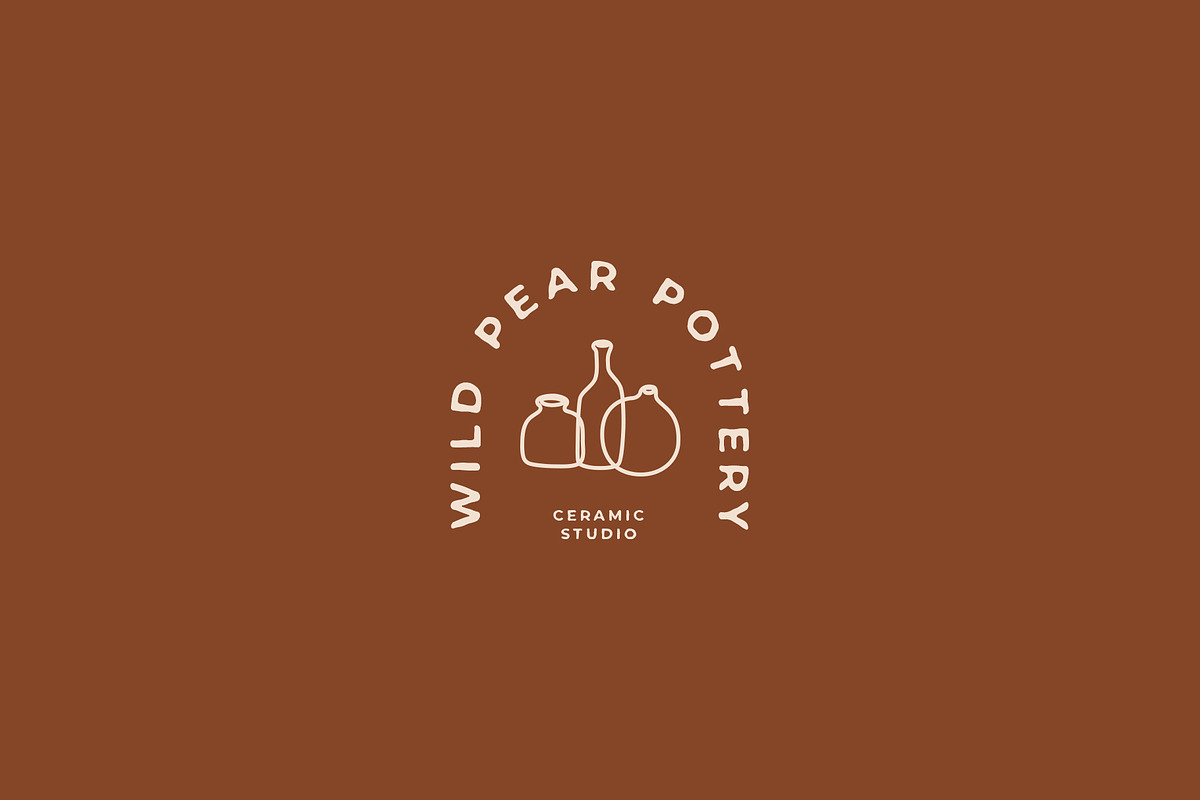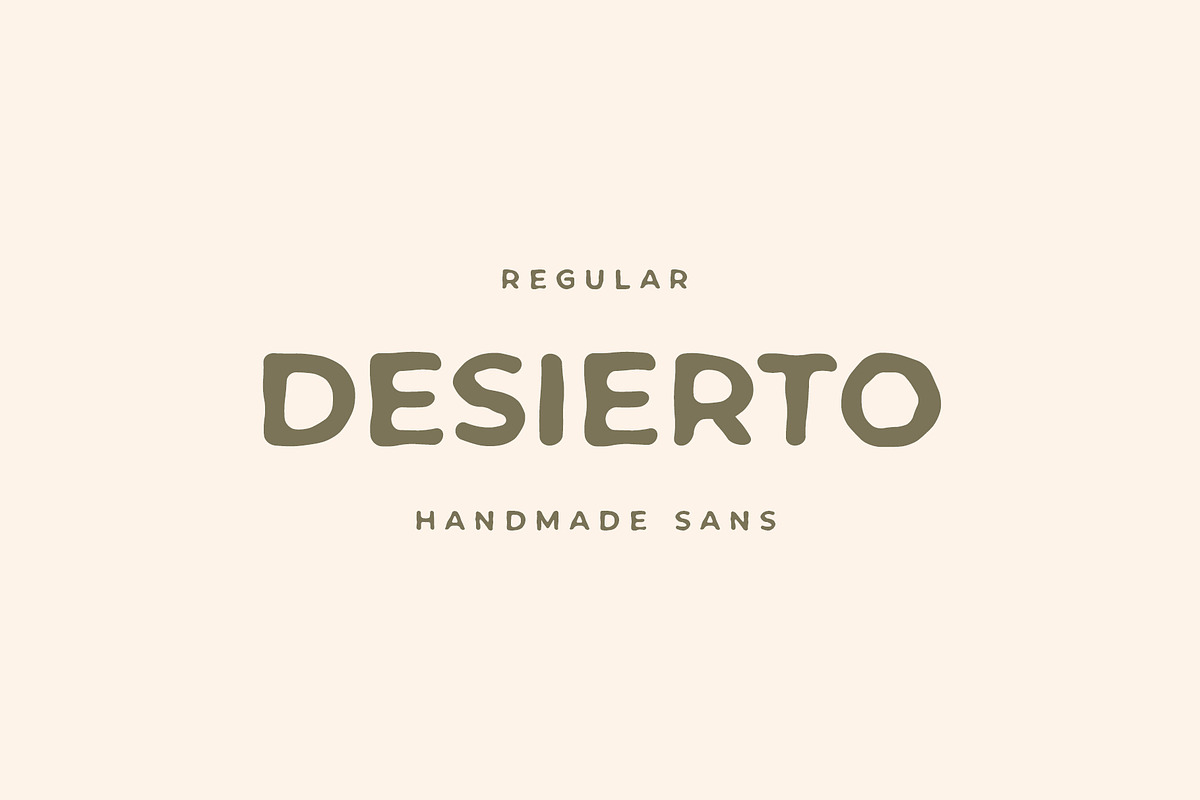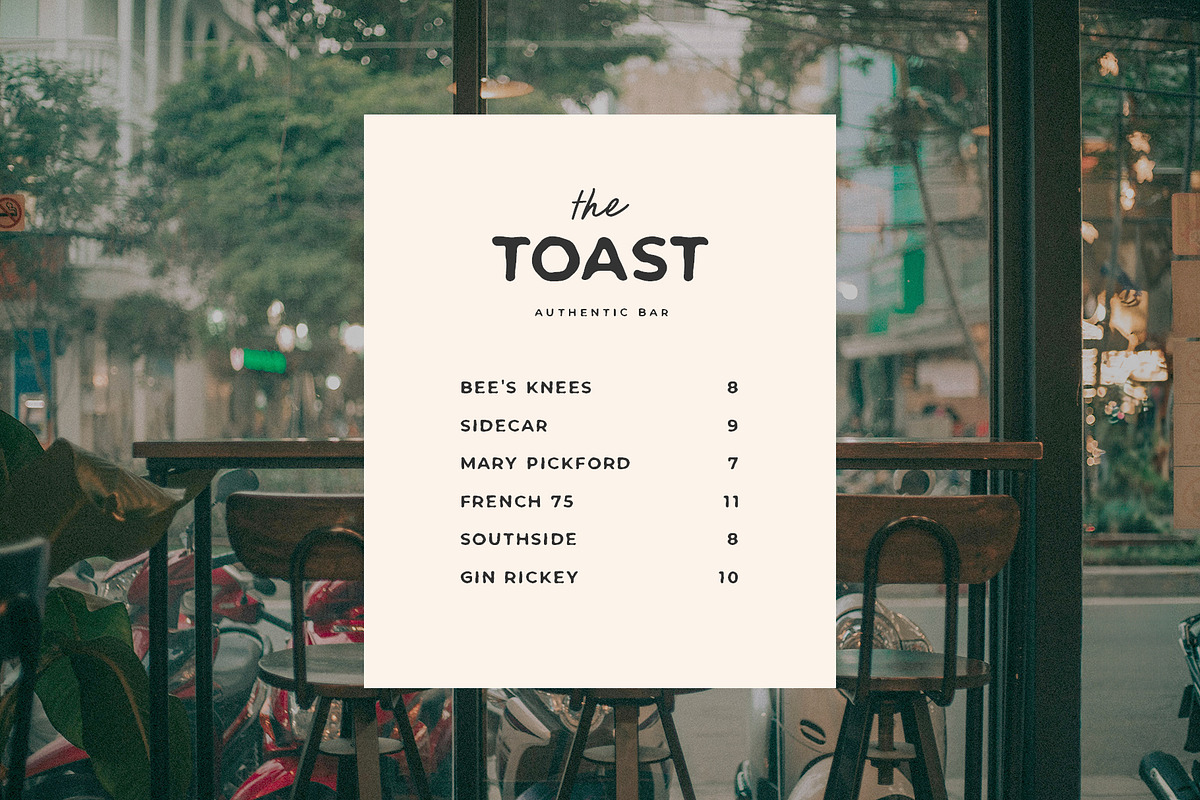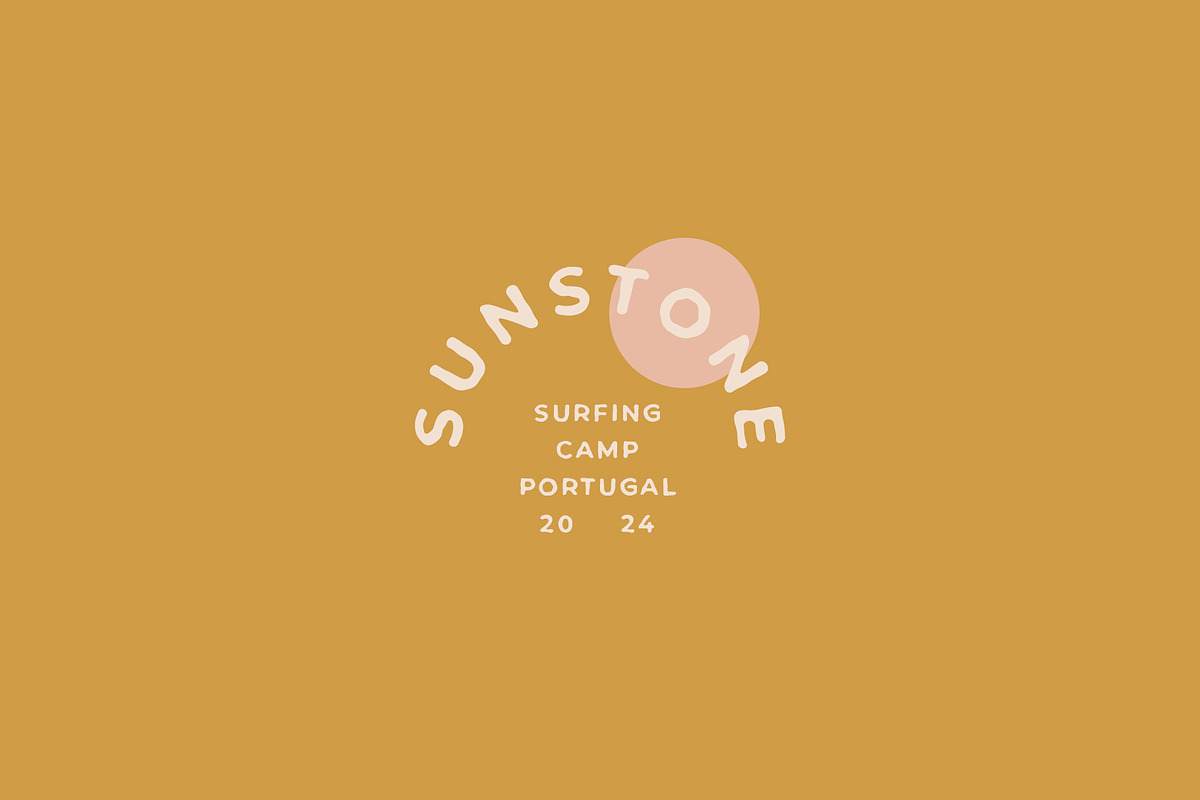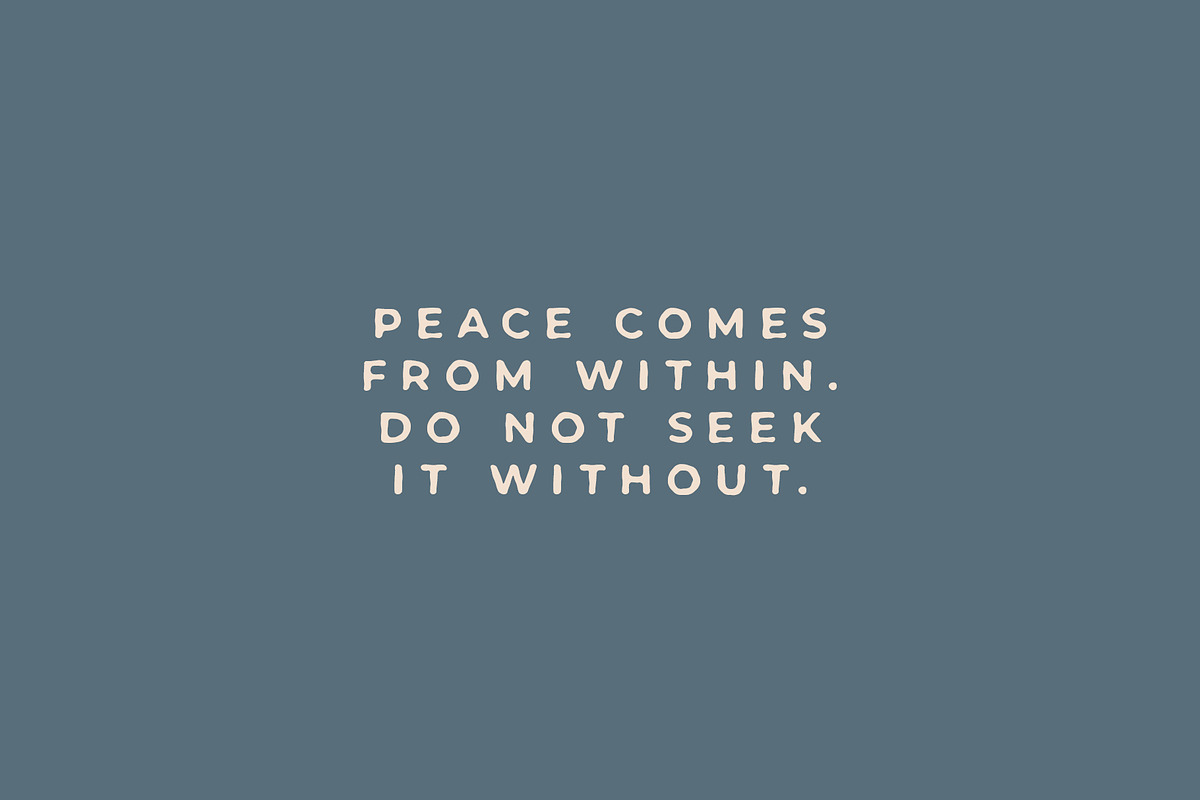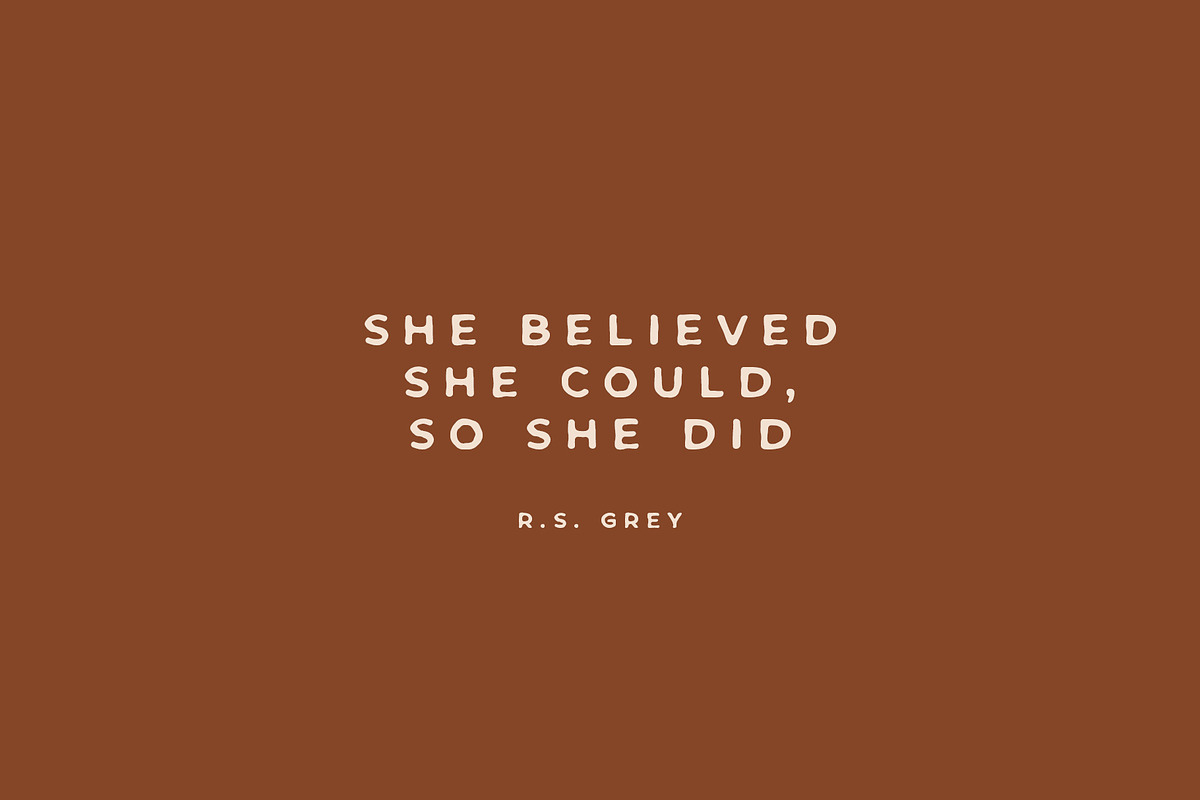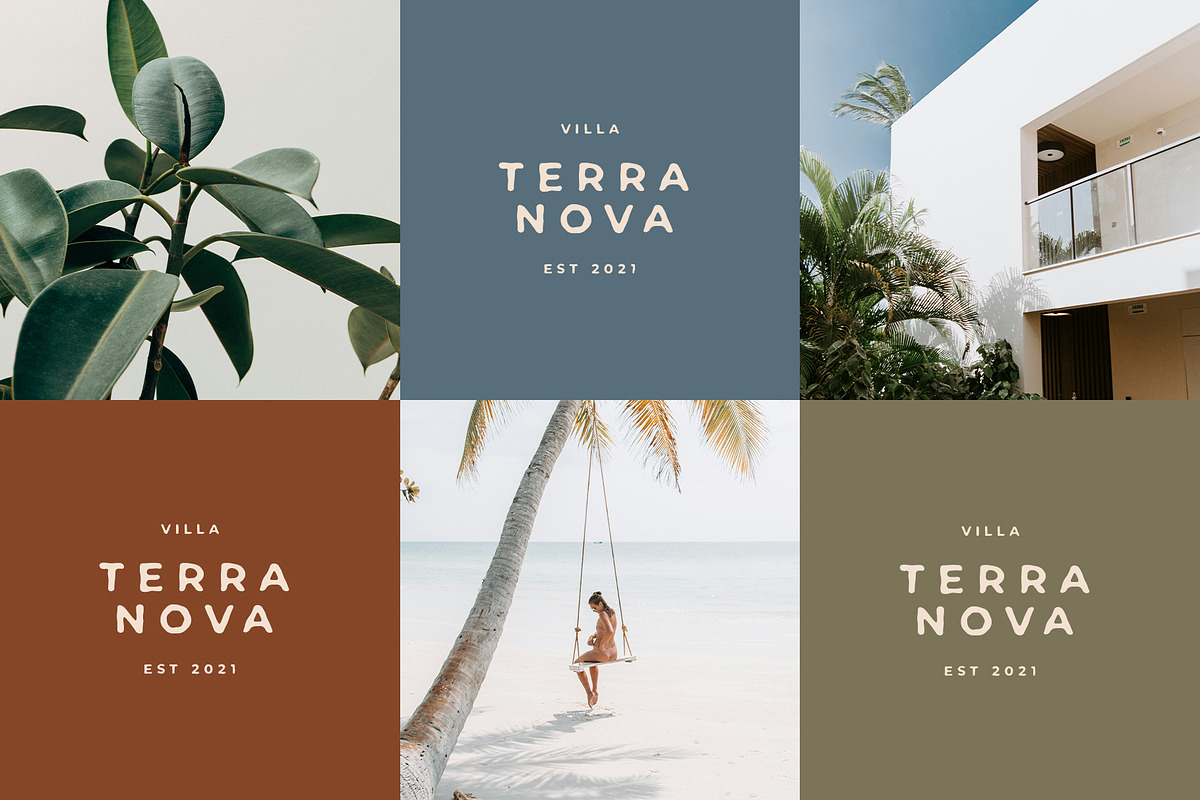
Desierto handwritten sans serif
Desierto is an elegant, handwritten sans serif. This is a perfect for any project
Language support: All European languages
Multilingual Characters